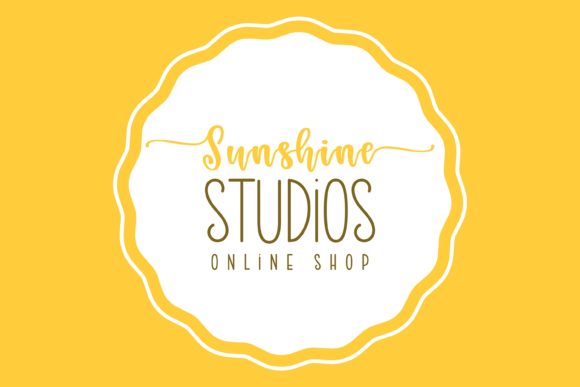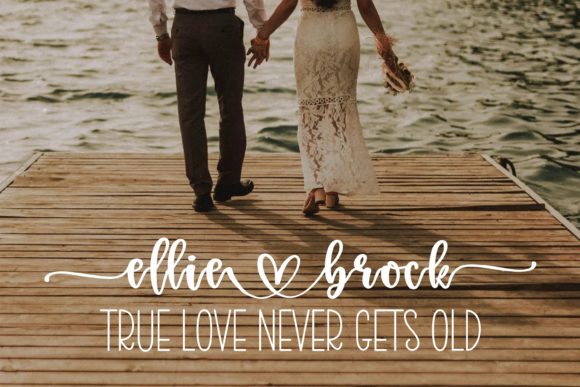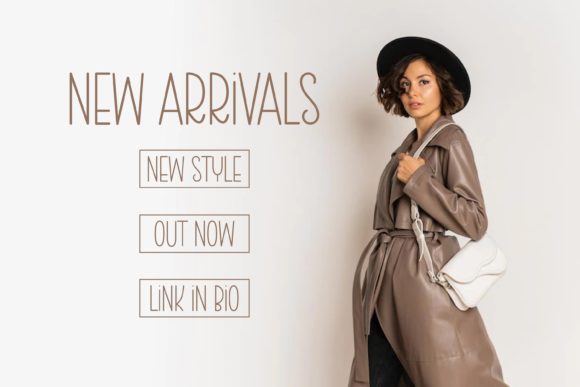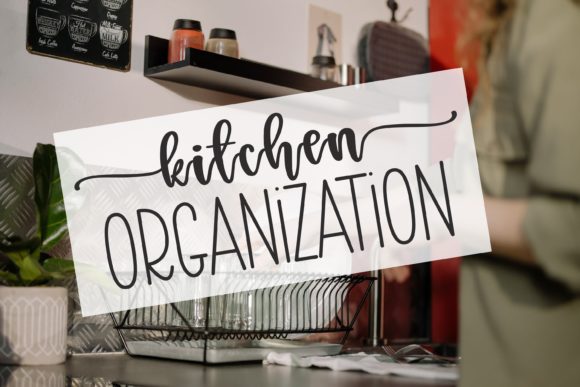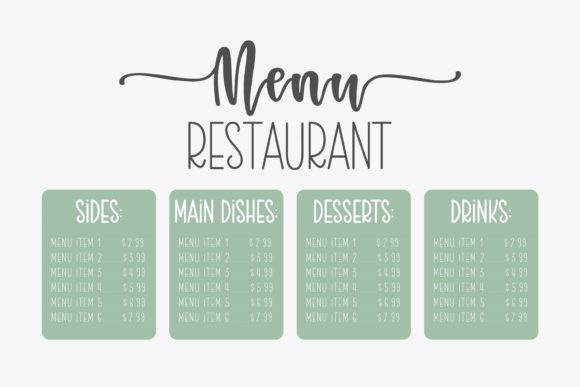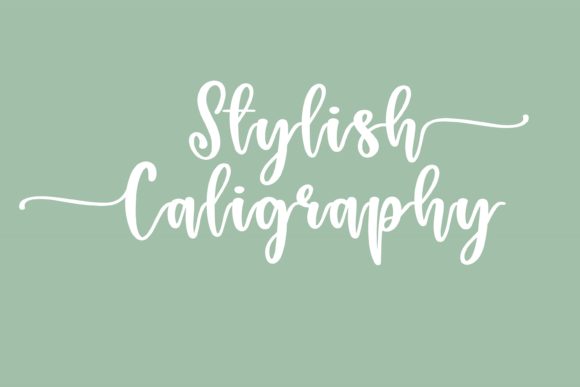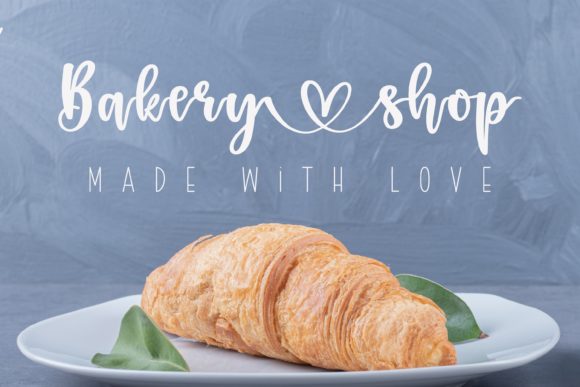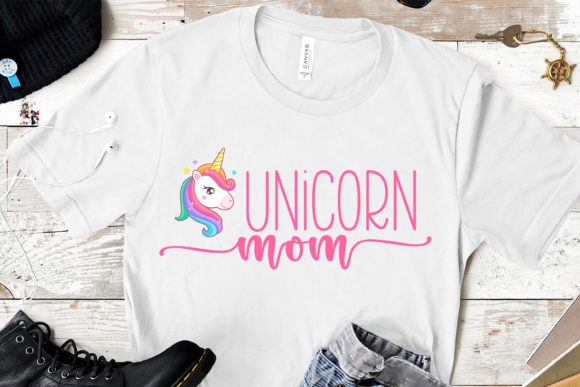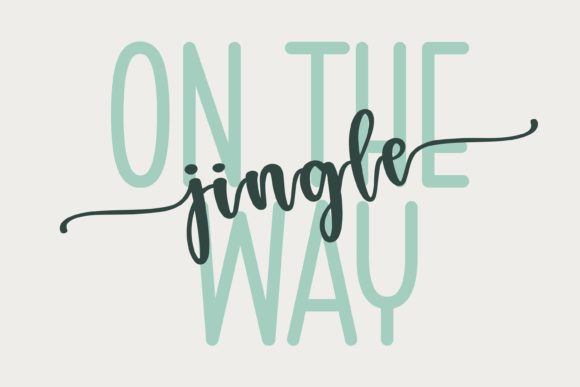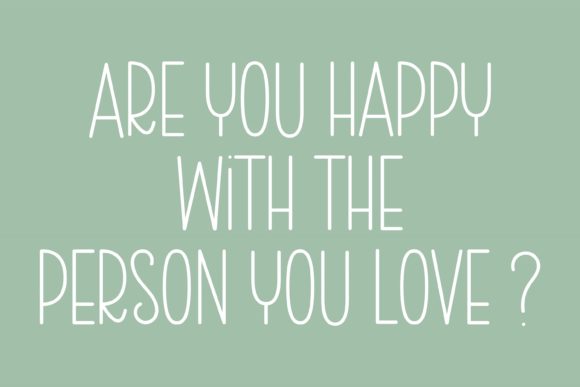
Fall in Love Font
Fall in Love is a duo-styled handwritten font that exudes a sense of beauty and elegance. Its unique design makes it a versatile choice for a variety of creative projects. Let’s revise this text into a SEO-friendly 400-word version:
Fall in Love is a duo-styled handwritten font that stands out with its unique design. Crafted with meticulous attention to detail, Fall in Love is designed to deliver the expected outcomes, making it a valuable addition to any font library. Whether you’re working on a branding project, designing a logo, or creating a website, Fall in Love can add a touch of elegance and modernity to your creations.
One of the key features of Fall in Love is its duo-styled and handwritten design. Unlike traditional fonts, Fall in Love is designed with a unique handwritten style that gives it a unique character. This duo-styled and handwritten design not only makes Fall in Love stand out but also adds a personal touch to your designs, making them more engaging and appealing to the audience.
Fall in Love is more than just a stylish script font. It’s a versatile design tool that can enhance the aesthetic appeal of your projects. Its elegant and modern look makes it suitable for a wide range of applications, from logos and branding to invitations, stationery, wedding designs, and more. The versatility of Fall in Love makes it a valuable addition to any designer’s toolkit.
In addition to its aesthetic appeal, Fall in Love also offers practical benefits. Its clear and legible design makes it suitable for both print and digital mediums. Whether you’re designing a business card or creating a website, Fall in Love ensures that your text is always easy to read and understand.
Fall in Love is not just a font; it’s a design asset. Its potential to enhance any creation makes it a valuable addition to any designer’s toolkit. With Fall in Love, you can add a touch of elegance and sophistication to your designs, making them more appealing and engaging.
In conclusion, Fall in Love is a duo-styled handwritten font that can enhance the beauty of any design. Its elegant and modern look, combined with its versatility and high readability, makes it a valuable addition to any font library. Whether you’re a professional designer or a hobbyist, Fall in Love is a font that can help you create stunning and memorable designs. So, if you’re looking for a font that can add a personal touch to your designs, look no further than Fall in Love.